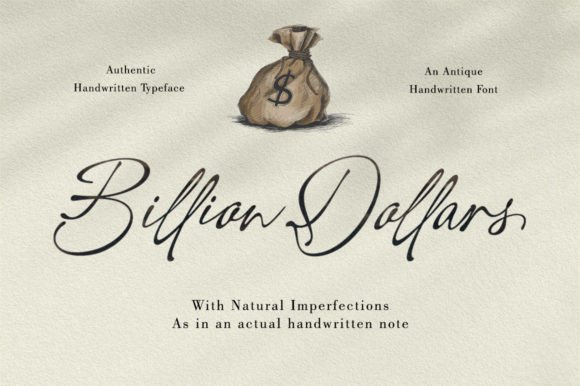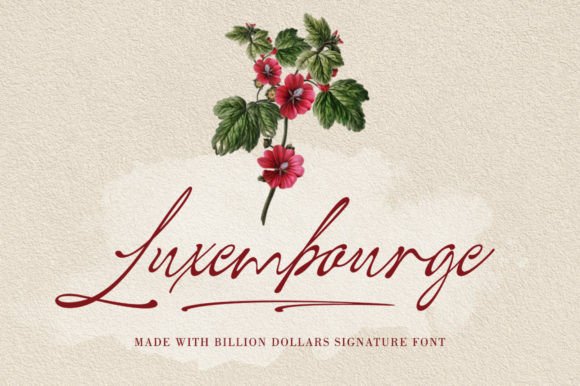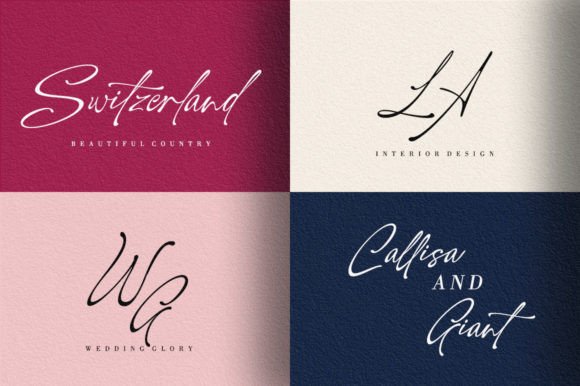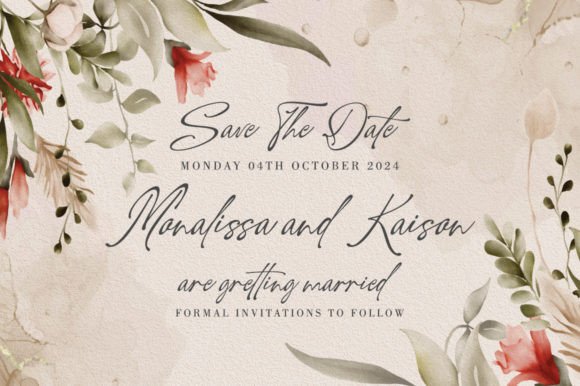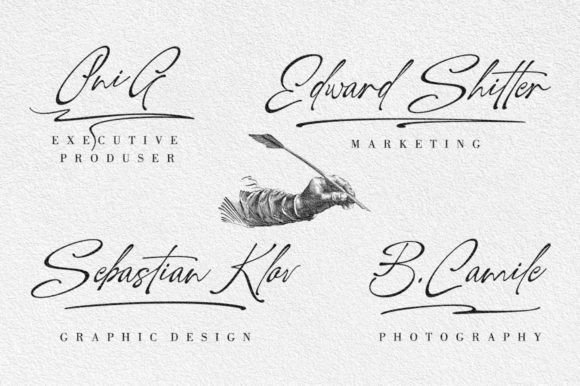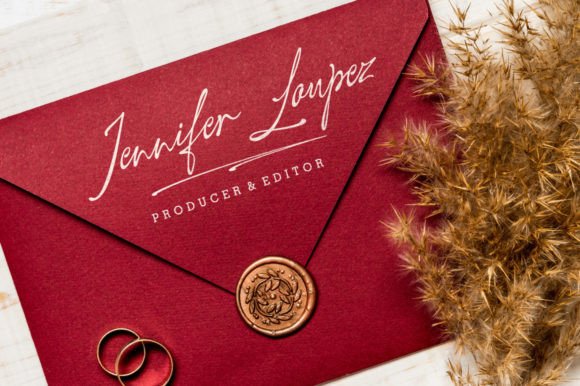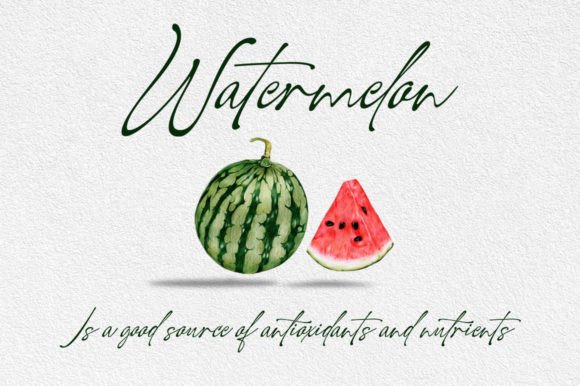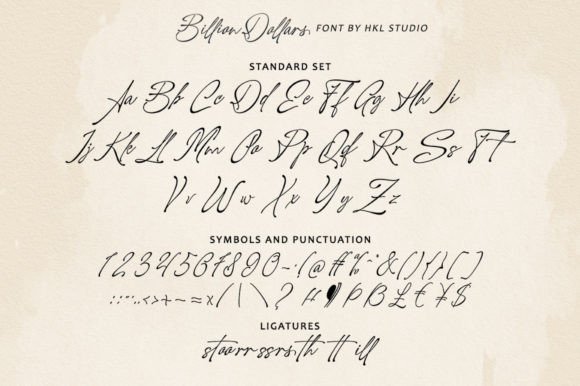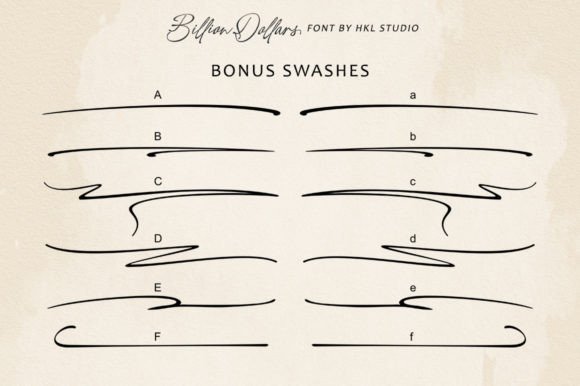
Billion Dollars Font
Billion Dollars Signature Font
This is a Vintage Handwriting font filled with beautiful characters. Billion Dollars appeals as a smooth, clean, feminine, sensual, glamorous, simple, and easy-to-read typeface.
It’s perfect for logos, wedding invitations, alcohol labels, romantic cards, and more.